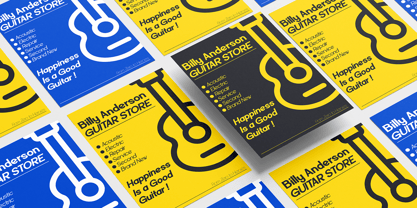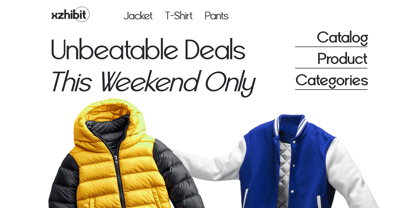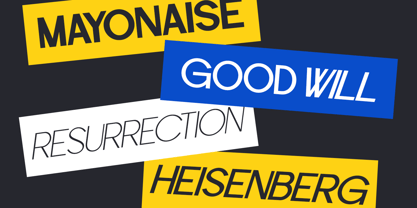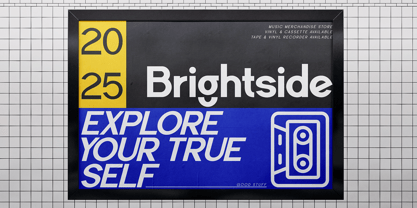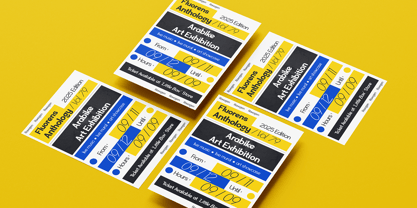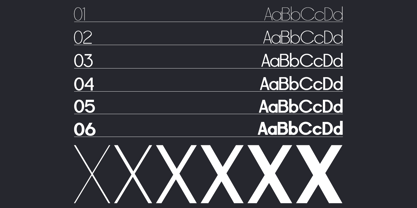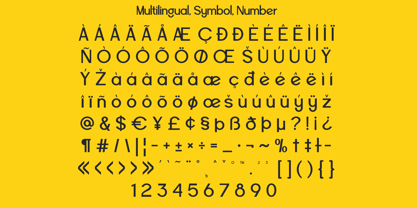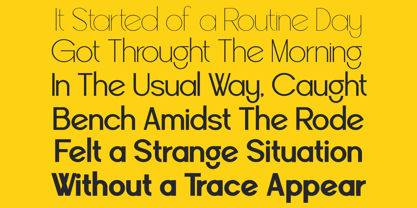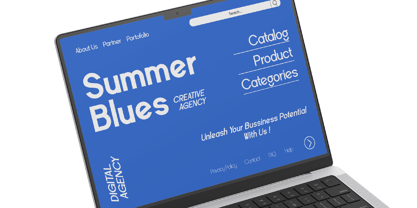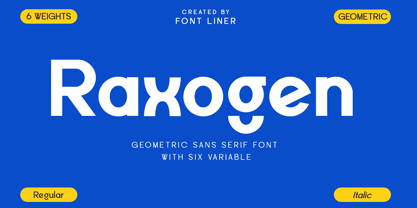
Raxogen
The Raxogen Font Family was designed by Ghina Luthfiarieska and published by Font Liner. Raxogen contains 2 styles and family package options. More about this family
Raxogen is geometric Sans Serif Font with 6 variable designed with today’s caring brands in mind. This modern font combines clean, geometric precision with subtle humanist elements, creating a perfect balance of functionality and warmth. Raxogen perfect for print applications, including web design, user interfaces, and advertising. Whether you’re crafting a corporate identity or designing a cutting-edge app with delivers both visual impact and functional excellence.
- 6 Variable Weights
- Multilingual Support